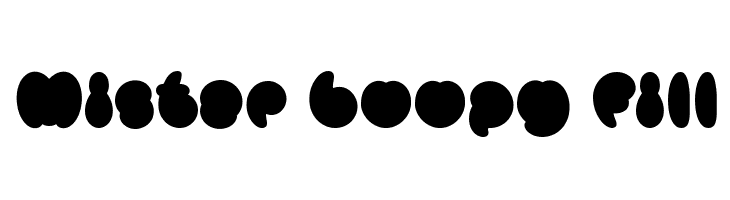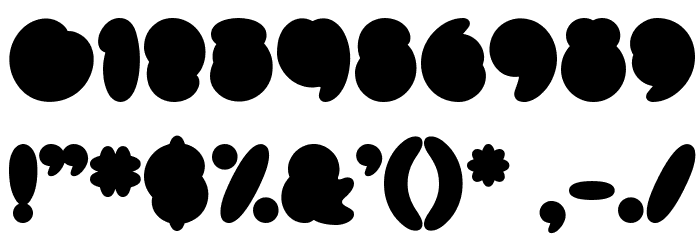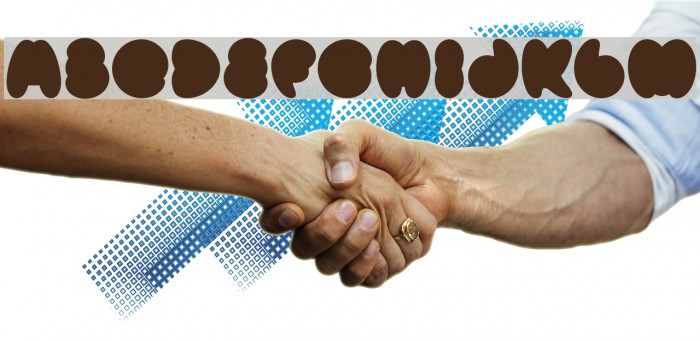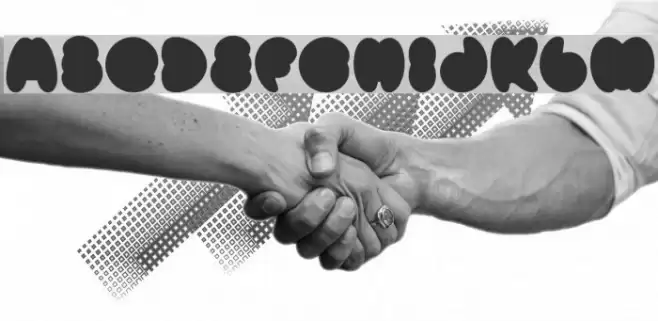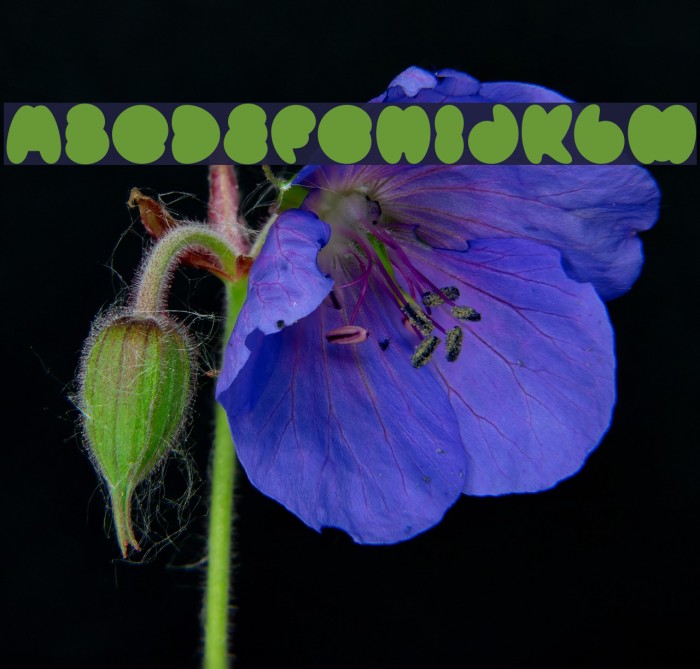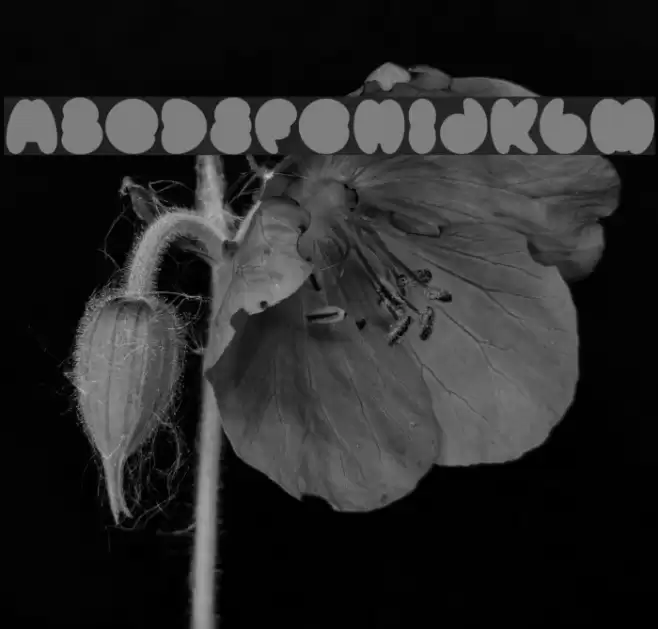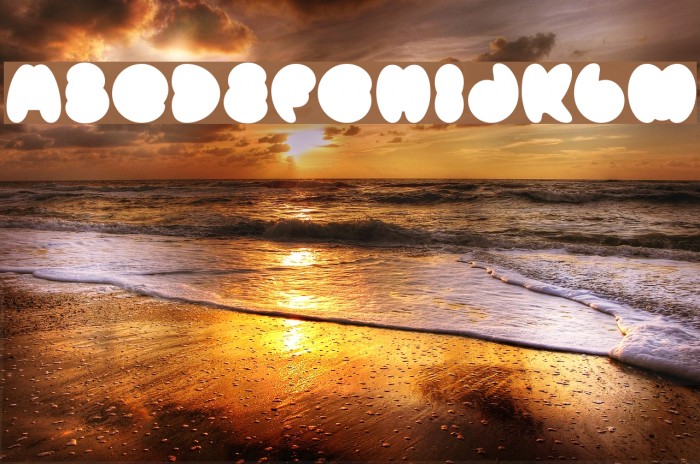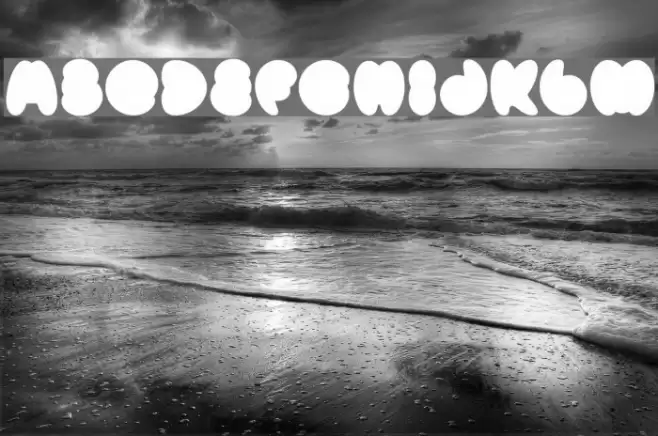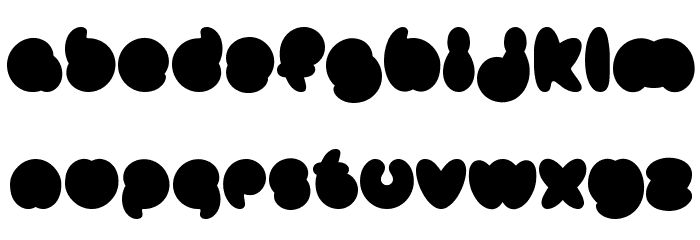
Mister Loopy Fill Font
Mister Loopy Fill Description
This playful and bold font features thick, rounded characters with a bubbly appearance. Each letter is crafted with a sense of whimsy, making it ideal for designs that require a fun and lively touch. The characters are uniformly wide, contributing to a cohesive and balanced look. The font's unique style is characterized by its exaggerated curves and soft edges, creating a sense of movement and energy. It is particularly well-suited for creative projects that aim to capture attention and convey a sense of joy and playfulness.
| Width | Expanded |
| Overall Style | Playful, Fun, Whimsical |
| Proposed Projects | Ideal for children's books, playful branding, party invitations, and creative posters. |